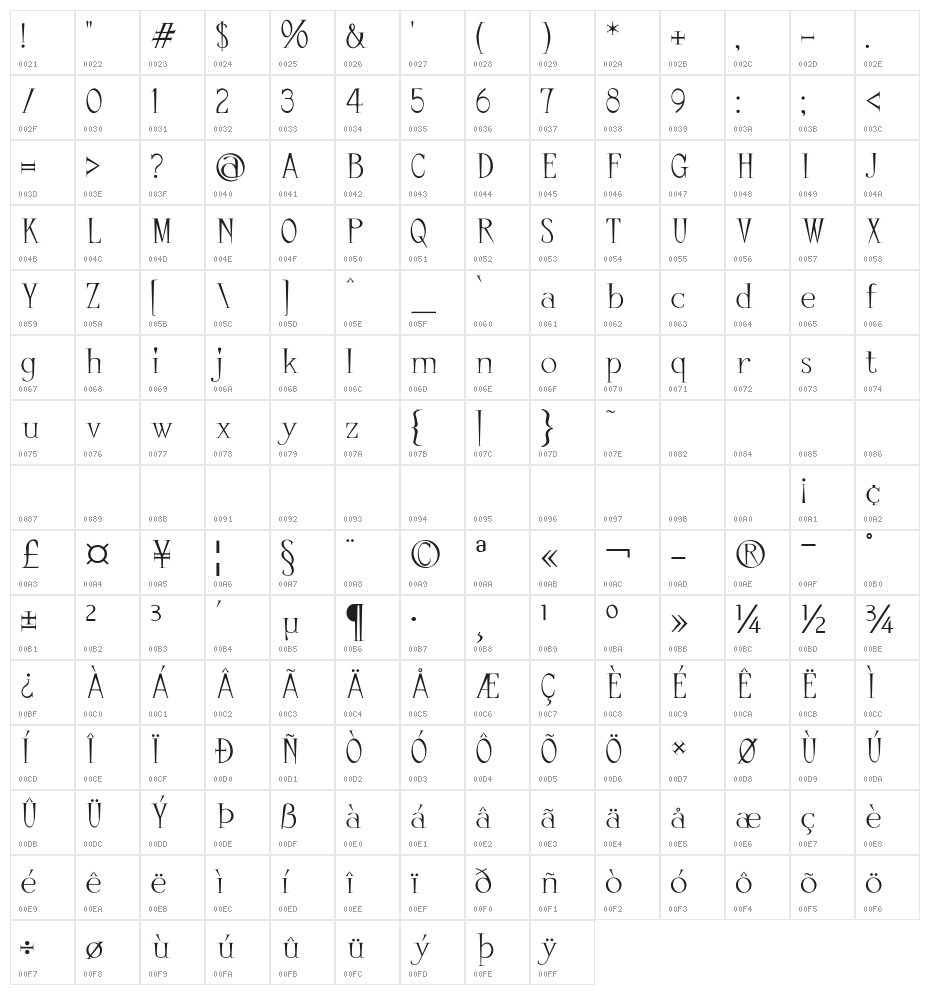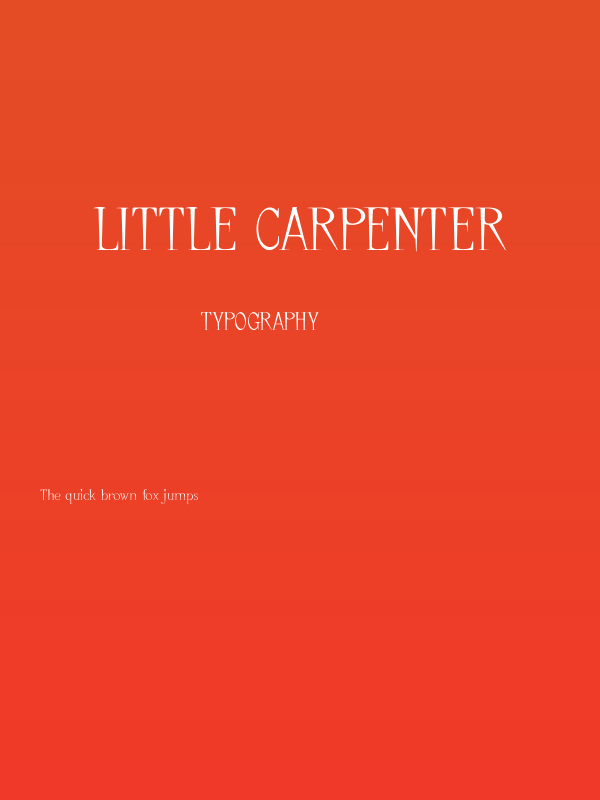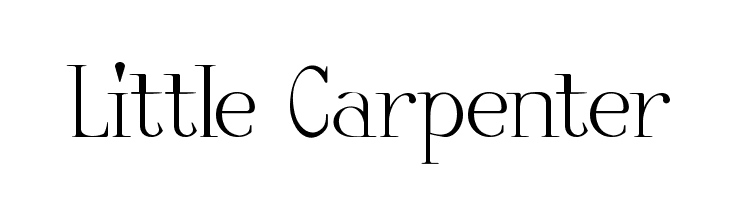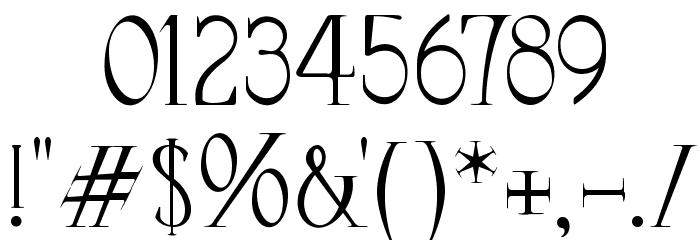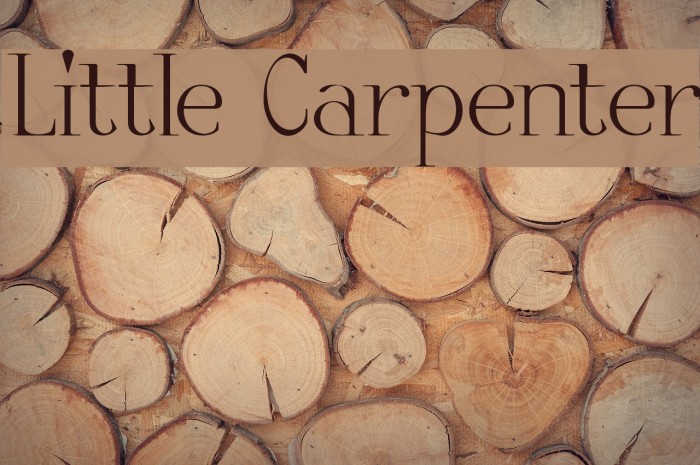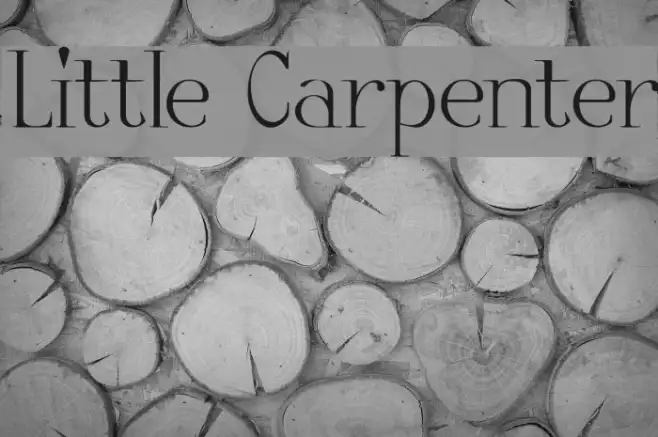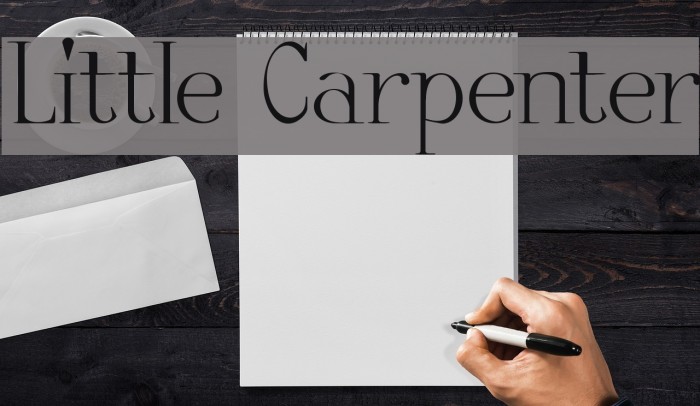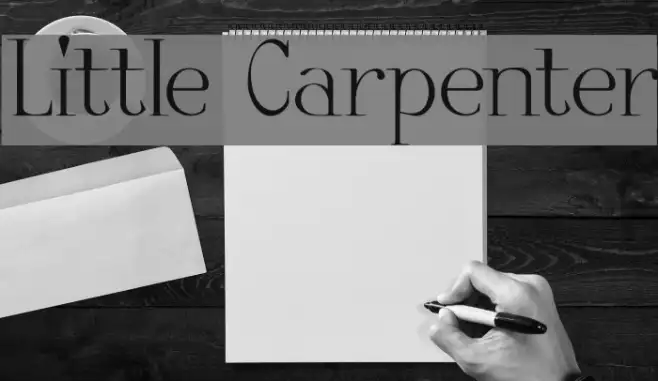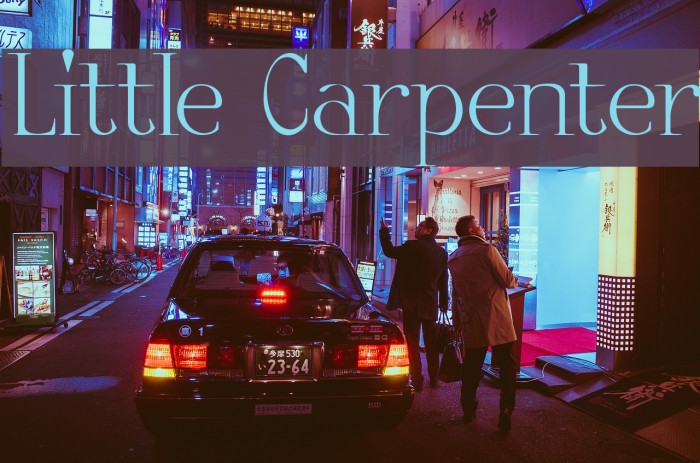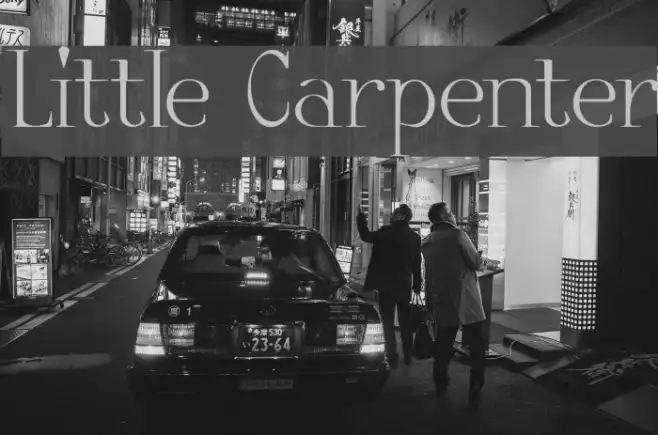
Little Carpenter Font
Little Carpenter Description
This font exhibits a classic serif style with elegant and elongated letterforms. The uppercase letters are tall and slightly narrow, featuring sharp serifs that add a touch of sophistication. The lowercase letters maintain a consistent style, with smooth curves and a balanced weight. The numerals are distinct and easy to read, complementing the overall design. Special characters are well-integrated, maintaining the font's cohesive appearance. The font's design is suitable for projects that require a refined and traditional look, making it ideal for formal documents, invitations, and editorial design.
| Proposed Projects | Ideal for formal documents, invitations, editorial design, and branding materials. |